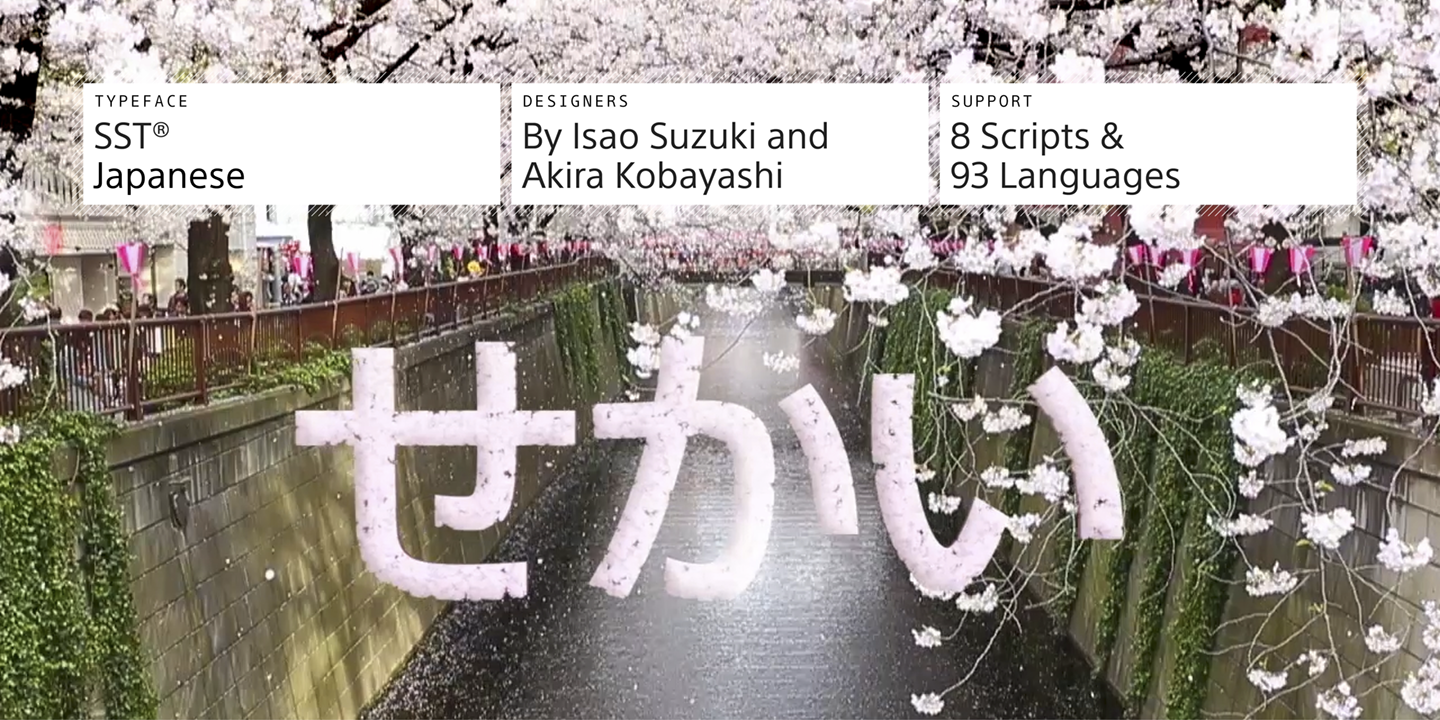
SST Japanese Font is perfect for Japanese corporate communications, manga publication layouts, anime production titles, sushi restaurant branding, Japanese cultural exhibitions, technology company interfaces, and modern East-Asian design projects that require authentic Japanese typography with contemporary functionality.
This font is exciting because it seamlessly integrates traditional Japanese writing systems with cutting-edge digital design principles, featuring meticulously crafted Hiragana, Katakana, and Kanji characters that honor calligraphic heritage while ensuring perfect performance across modern platforms.
The SST Japanese Font family includes light, regular, medium, and bold weights with condensed variants, offering complete Japanese character sets, Latin alphabets, punctuation systems, numerical formats, and cultural symbols designed for comprehensive Japanese typographic applications.
Japanese design professionals consistently choose SST Japanese Font Free Download for projects requiring authentic Japanese character representation and modern digital excellence. This sophisticated typeface transforms Japanese communications into compelling statements of cultural precision that immediately serve Japanese-speaking audiences and international brands seeking genuine Japanese design authenticity. The font's versatile character makes it exceptionally effective for Japanese technology companies, cultural institutions, and global brands where Japanese tradition and contemporary digital requirements must be perfectly harmonized for diverse applications. Its systematic design approach supports complex Japanese text hierarchies while ensuring optimal readability across mobile devices and large-format displays. The precisely engineered Japanese characters maintain their cultural integrity across digital manga platforms and corporate presentations, making it ideal for comprehensive Japanese brand systems. Whether you're developing Japanese software interfaces, creating manga publication layouts, or designing Japanese cultural event materials, this typeface provides the authentic voice and technical precision that distinguishes serious Japanese typography from generic multilingual fonts, establishing immediate credibility among Japanese readers who demand authentic character formation and expect the highest standards of Japanese typographic excellence in their digital experiences and cultural communications.